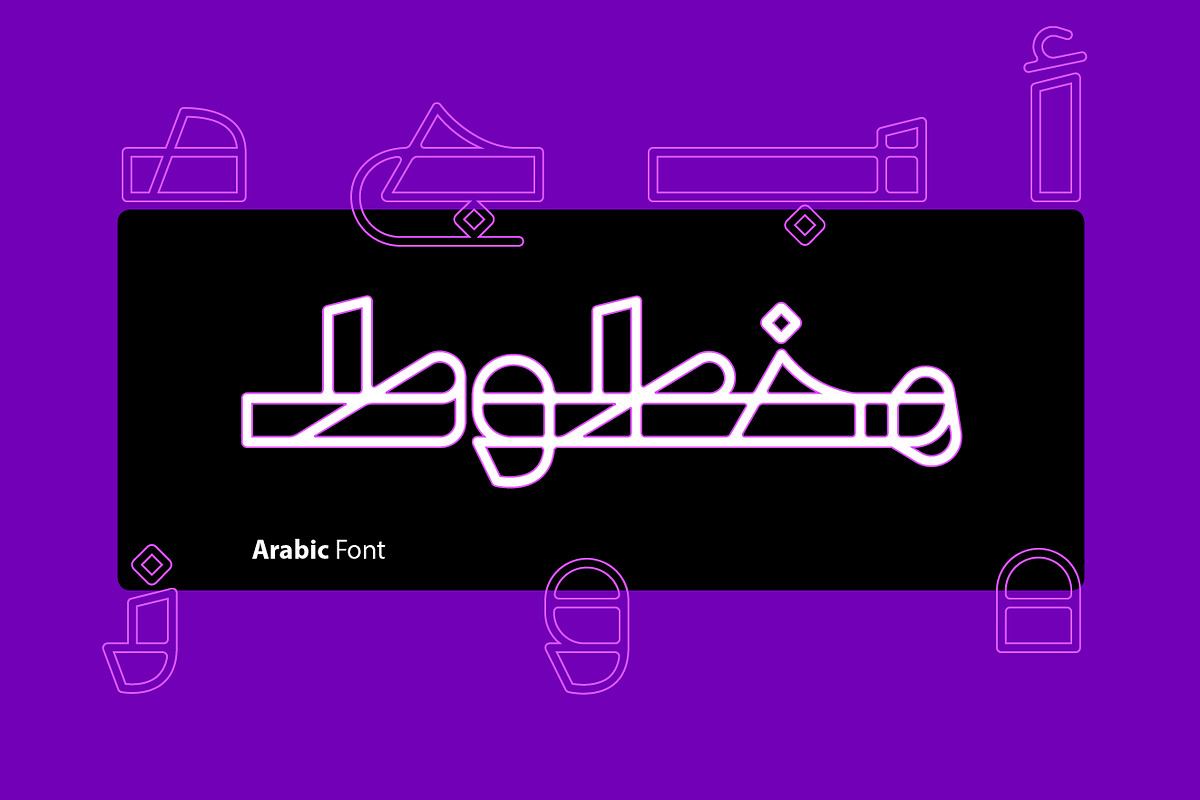
Makhtoot - Arabic Font خط عربي Free Download
Please note, you must purchase this font for commercial use. However, you can easily download Makhtoot - Arabic Font Free Download for personal use and testing purposes. Makhtoot - Arabic Font is a beautifully crafted, elegant Arabic typeface designed to bring sophistication and style to any project. Perfect for branding, posters, logos, and print materials, this font offers traditional Arabic calligraphy with a modern, refined twist. Whether you're working on a cultural project, a luxury brand, or any design that requires a touch of elegance and authenticity, Makhtoot - Arabic Font Free Download will enhance your typography with its beautiful letterforms and fluid design. Download Makhtoot - Arabic Font Free Download today and explore its potential before opting for a commercial license.